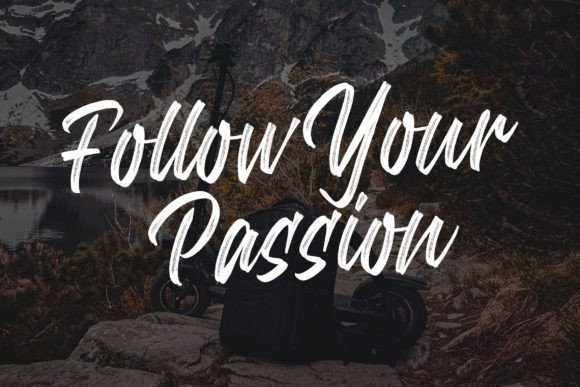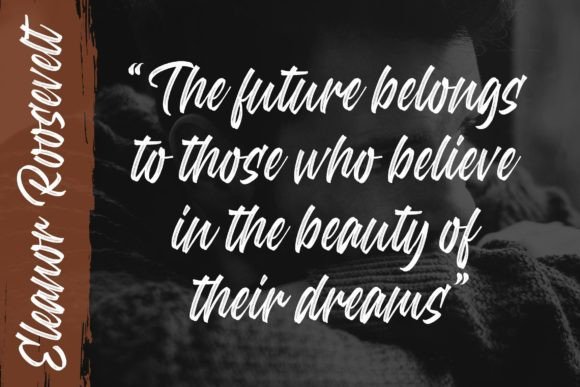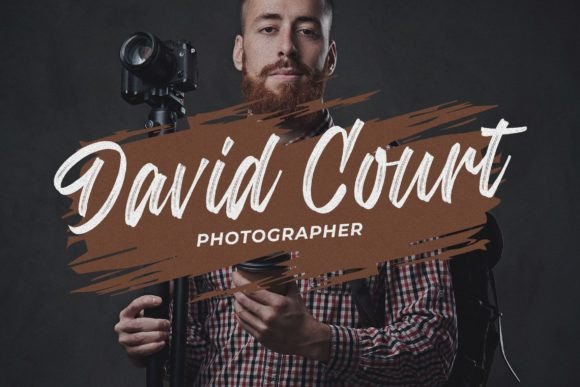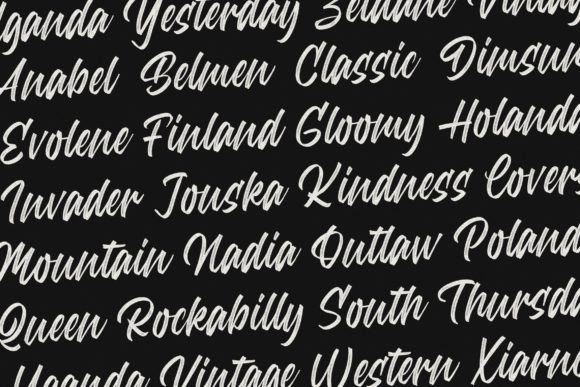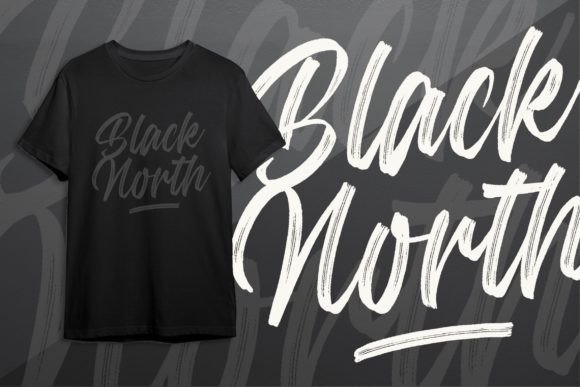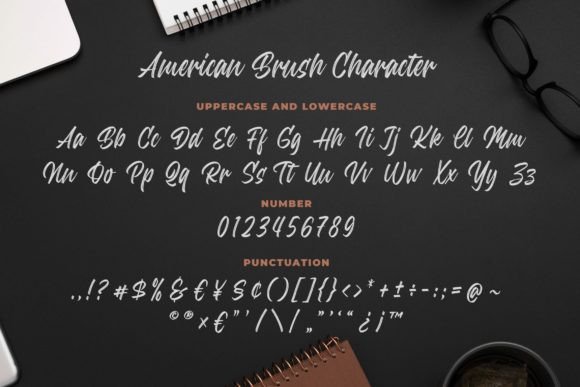
Introducing American Brush Font: Adding a Touch of Spontaneity to Your Designs
Are you looking for a font that can add a dash of personality to your designs? Look no further than the American Brush Font. This stylish and beautiful script font is designed in a brush style that brings a touch of spontaneity and playfulness to any design. Its flowing strokes and natural texture give it a handmade appeal that’s perfect for logos, invitations, or anything that needs a touch of personality.
What is American Brush Font?
American Brush Font is a script font that mimics the look of brush calligraphy. It features flowing strokes, irregularities, and a natural texture that gives it a unique, handmade feel. This font is perfect for designers who want to add a touch of elegance and sophistication to their designs while still maintaining a playful and spontaneous feel.
Key Features of American Brush Font
- Brush Script Style: American Brush Font features a beautiful brush script style that adds a touch of elegance and sophistication to any design.
- Flowing Strokes: The font features flowing strokes that give it a natural, handwritten feel.
- Natural Texture: The font has a natural texture that gives it a unique, handmade appeal.
- Perfect for Logos and Invitations: American Brush Font is perfect for logos, invitations, and any other design that needs a touch of personality.
Why Use American Brush Font?
There are many reasons why you should consider using American Brush Font in your designs. Here are a few:
- Adds Personality to Your Designs: American Brush Font adds a touch of personality to your designs, making them stand out from the crowd.
- Perfect for Branding: The font is perfect for branding, as it can help create a unique and recognizable identity for your business.
- Easy to Read: Despite its playful feel, American Brush Font is easy to read, making it perfect for use in body text as well as headlines.
- Versatile: The font is versatile and can be used in a variety of design applications, from logos and invitations to packaging and more.
How to Use American Brush Font
Using American Brush Font in your designs is easy. Here are a few tips to get you started:
- Use it for Headlines: American Brush Font is perfect for use in headlines, as it adds a touch of elegance and sophistication to your text.
- Pair it with a Sans Serif Font: For body text, pair American Brush Font with a sans serif font to create a nice contrast and make your text easy to read.
- Experiment with Colors: American Brush Font looks great in a variety of colors, so don’t be afraid to experiment and find the perfect color for your design.
If you’re a designer or crafter looking to use American Brush Font in your work, here are a few tips to keep in mind:
- Use it to Add a Personal Touch: American Brush Font is perfect for adding a personal touch to your designs, whether you’re creating logos, invitations, or other materials.
- Experiment with Different Sizes: The font looks great in a variety of sizes, so don’t be afraid to experiment and find the perfect size for your design.
- Pair it with Other Fonts: American Brush Font pairs well with a variety of other fonts, so don’t be afraid to experiment and find the perfect combination for your design.
American Brush Font is a beautiful and stylish script font that adds a touch of spontaneity and playfulness to any design. Its flowing strokes and natural texture give it a handmade appeal that’s perfect for logos, invitations, or anything that needs a touch of personality. Whether you’re a designer or crafter, American Brush Font is a great choice for adding a personal touch to your work.